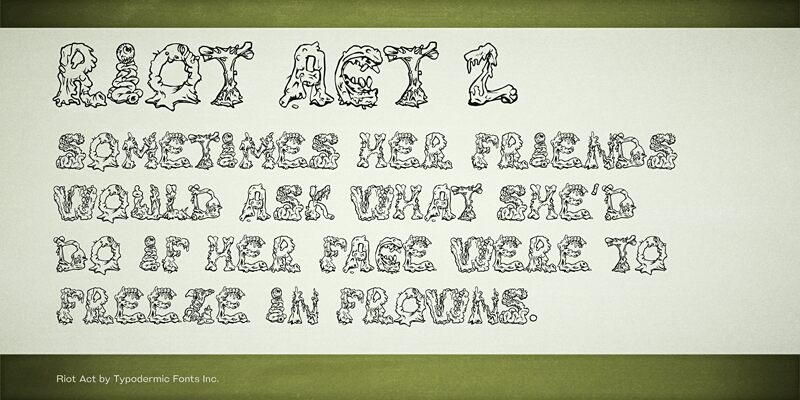
Riot Act 2 is a revolting headline belcher consisting mainly of monster viscera.
Presentazione e campione visivo del carattere RiotActTwoFront-Regular